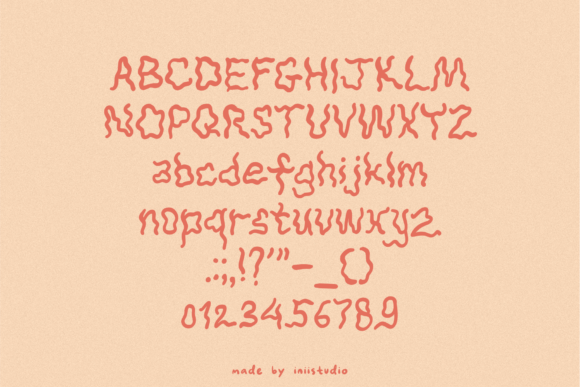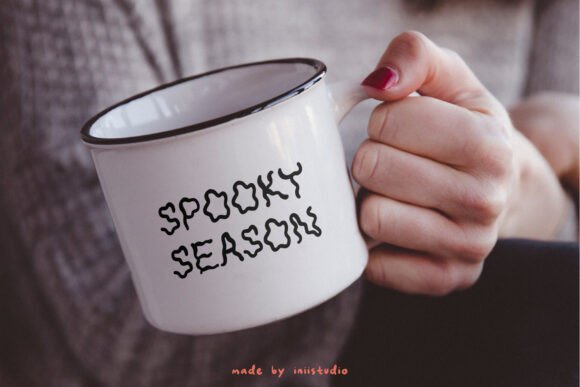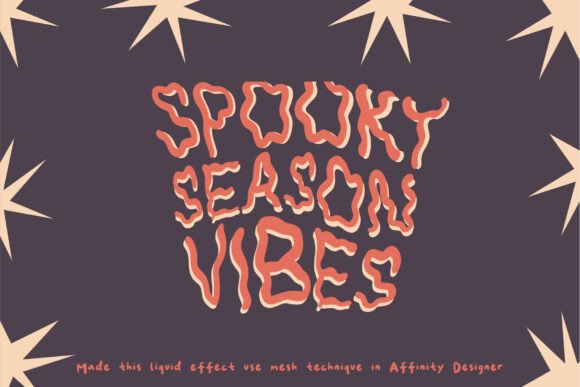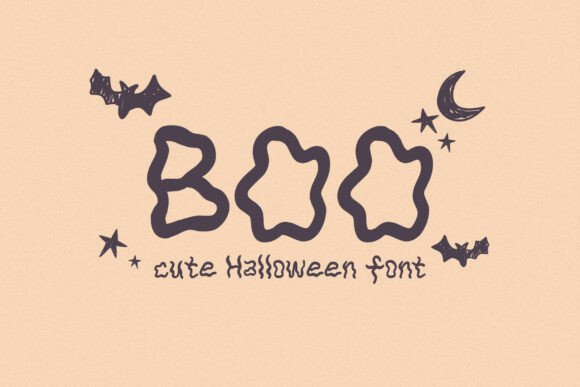
The Boo Font: A Spook-tacular Addition to Your Halloween Designs
I’ll never forget the year I was tasked with creating a Halloween-themed invitation for a friend’s costume party. As I scoured the internet for the perfect font, I stumbled upon the Boo Font – a fun, spooky font with a playful Halloween twist! With its whimsical letters and ghostly charm, it was exactly what I needed to add a cute and festive touch to my design.
An Honest Review of Boo Font
- ✨ Unique and playful letterforms that capture the spirit of Halloween
- ✅ Easy to read, even in smaller font sizes
- 🎃 Perfect for a variety of design projects, from invitations to decorations
- 👻 The ghostly charm and whimsy make it a standout font for the holiday
While I adore the Boo Font, there are a few things to keep in mind 🤔:
- ⚠️ Some letters may not be suitable for very formal or professional designs
- ⚠️ The font may not work well with very long texts or paragraphs
The Backstory of Boo Font
The Boo Font was created by a talented designer who’s passionate about creating fun and unique fonts for creative projects. Inspired by the magic of Halloween, the designer wanted to create a font that captures the spirit of the holiday – a blend of spooky and playful. And so, the Boo Font was born!
Q: What type of designs is Boo Font best suited for?
A: Boo Font is perfect for Halloween-themed designs, invitations, decorations, and any project that needs a spooky touch.